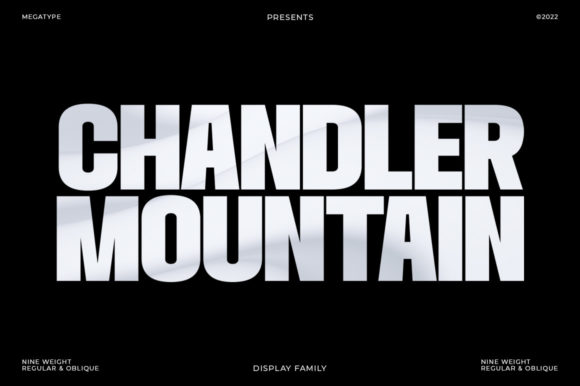
Journey into the world of bold and captivating letters with Chandler Mountain, a remarkable display font family. This font is not just a collection of characters; it's an artistic expression that will transform your words into mesmerizing masterpieces.
Crafted by the esteemed Megatype, Chandler Mountain exudes creativity and originality. Each letter is a work of art, meticulously designed to capture attention and leave a lasting impression. Whether you're a seasoned designer or just starting your creative journey, this font is the perfect tool to elevate your projects to new heights.
Unleash your imagination and let Chandler Mountain work its magic on your Instagram posts, logos, posters, and more. Its bold and striking lines will make your words stand out and demand attention. Craft stunning calligraphy scripts for DIY projects that will turn ordinary objects into unique and personalized works of art.
With Chandler Mountain, the possibilities are endless. Its versatility knows no bounds, making it the perfect choice for a wide range of projects. From eye-catching headlines that grab attention to elegant invitations that leave a lasting impression, Chandler Mountain will elevate your creative vision and make your ideas shine.
Don't settle for ordinary fonts that blend into the background. Choose Chandler Mountain and experience the power of bold and captivating letters. Let your words dance off the page and capture hearts with this extraordinary font family.